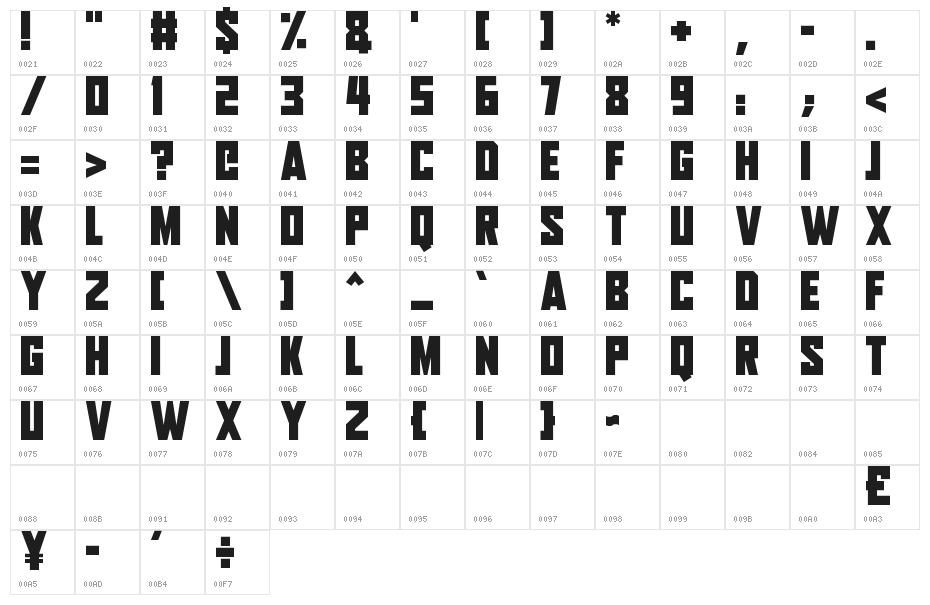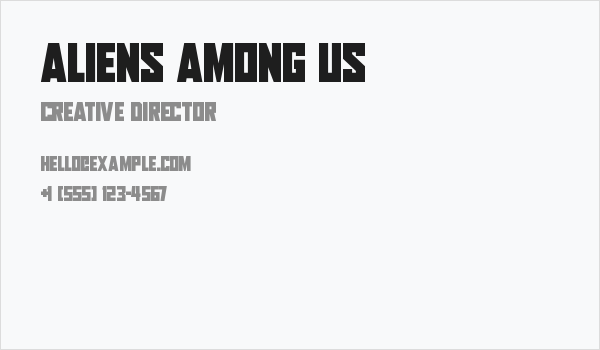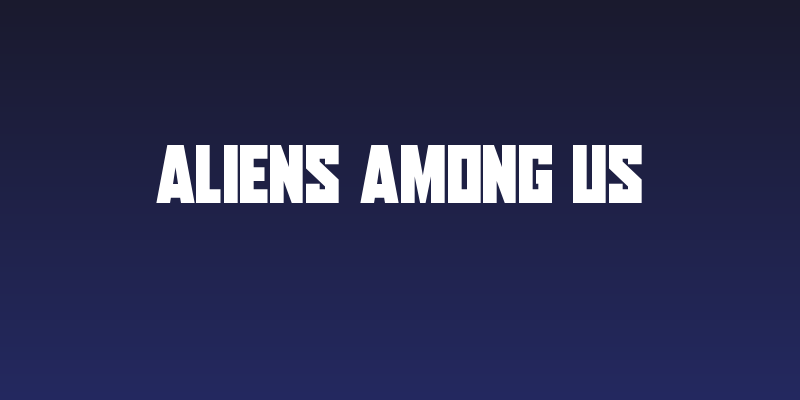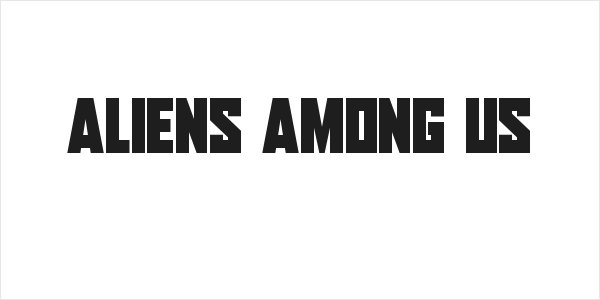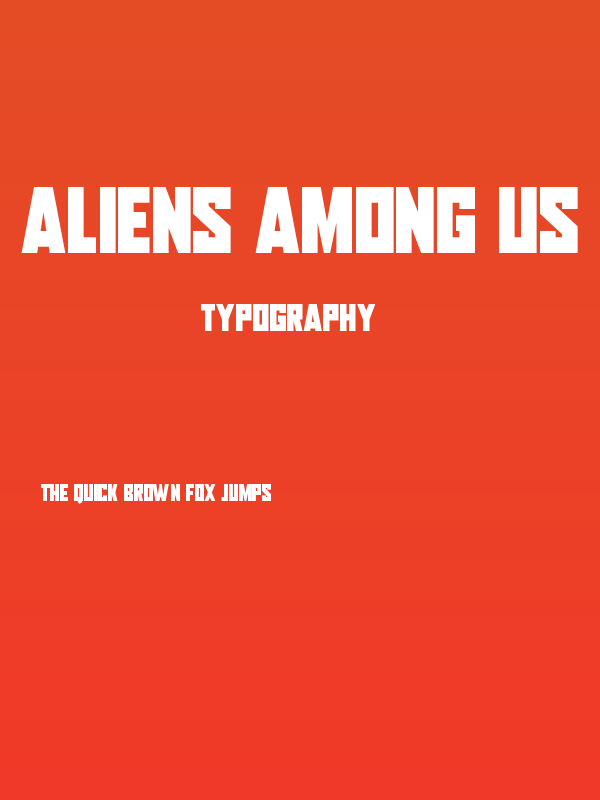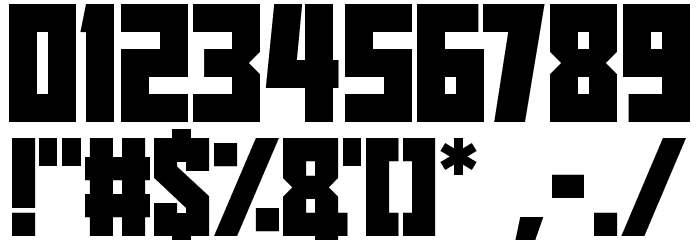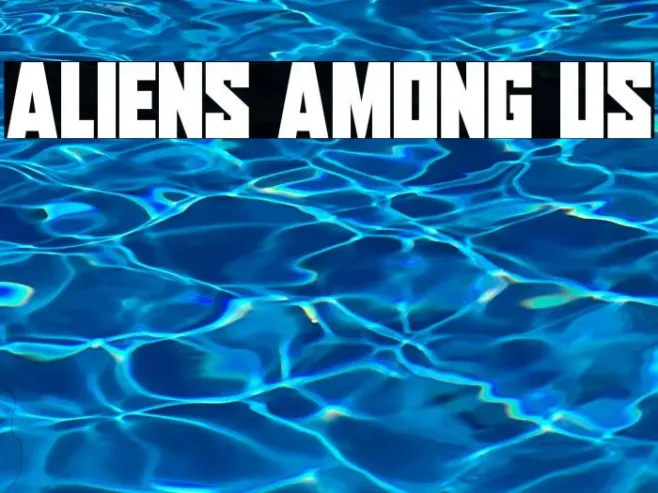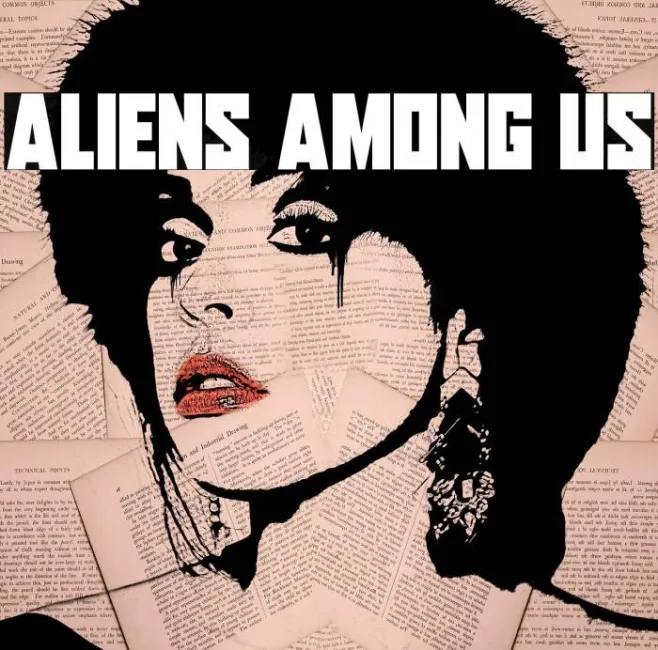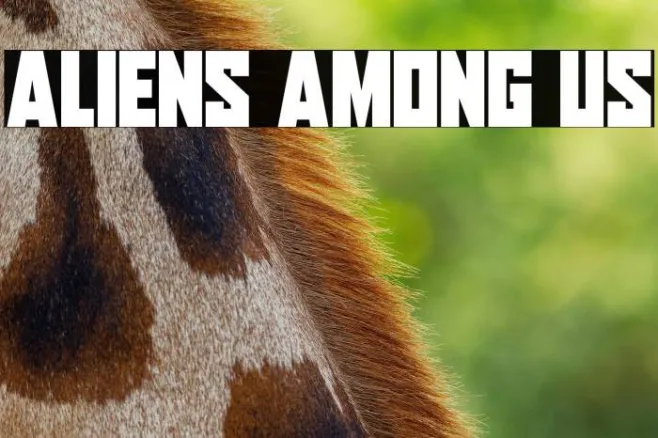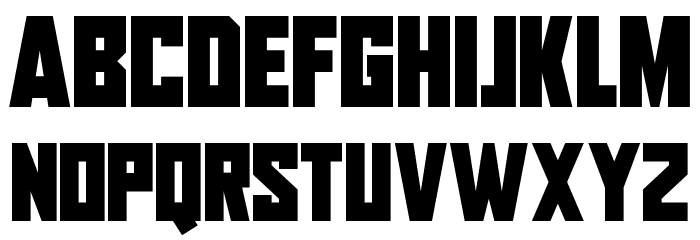
Aliens Among Us Font
Aliens Among Us Description
This font features a bold and striking design with a distinctly geometric and angular style. The characters are blocky and robust, with sharp edges and a strong presence, making it ideal for attention-grabbing headlines or titles. The uppercase letters are uniform in height, while the numbers and special characters maintain the same bold aesthetic. The font's design is reminiscent of futuristic or sci-fi themes, with a modern twist that adds a unique flair to any project. Its boldness and geometric shapes make it stand out, ensuring that any text set in this font will be noticed.
| Proposed Projects | Ideal for sci-fi themed posters, video game titles, or any project requiring a bold, modern aesthetic. |